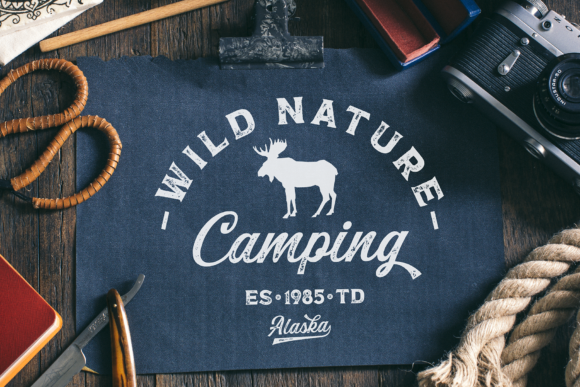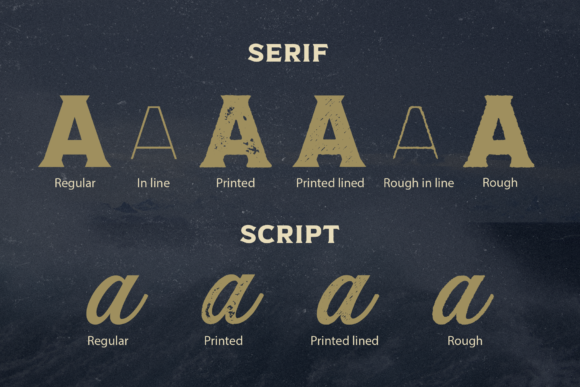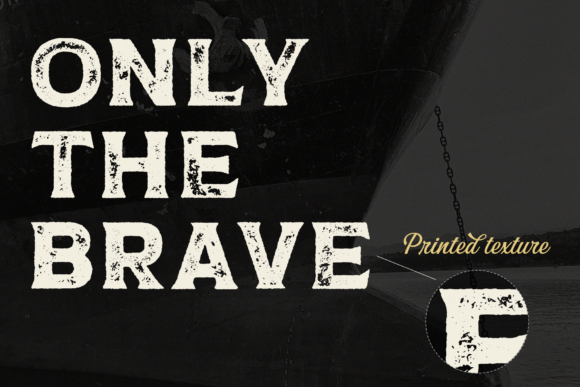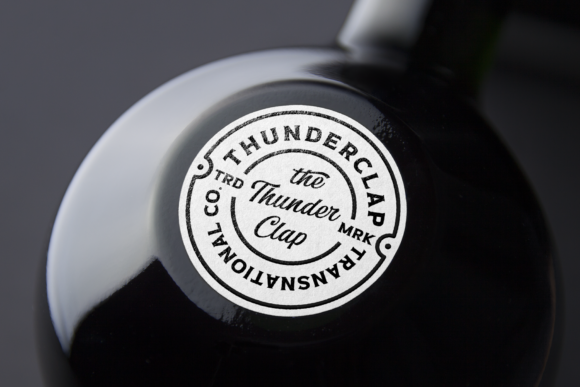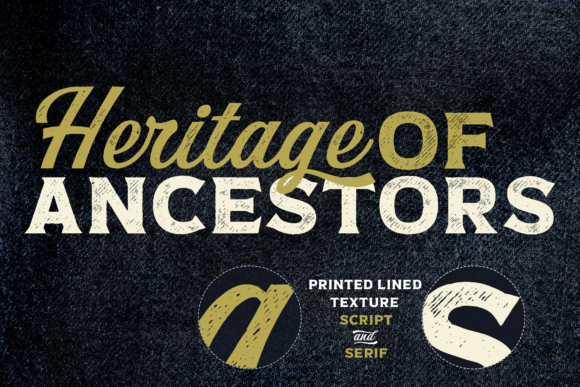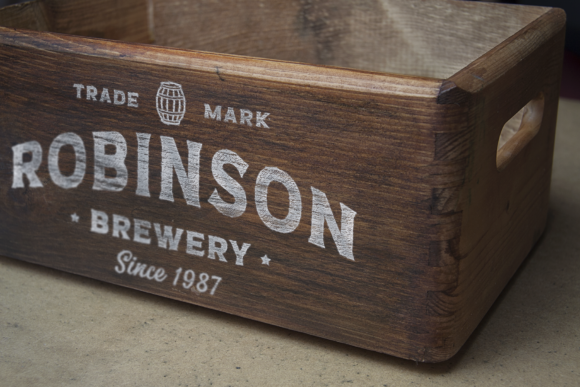
Introducing Captain Nelson Font: The Ultimate Duo for Stunning Design Results
Are you tired of using the same old fonts in your designs? Look no further than Captain Nelson Font, a game-changing duo that combines a charming script font with a confident serif font. This powerful pair is designed to help you create stunning design results that will leave a lasting impression. In this article, we’ll dive into the world of Captain Nelson Font and explore its features, benefits, and uses.
The Perfect Pair: Script and Serif Fonts
Captain Nelson Font brings together two incredible fonts that are designed to work perfectly together. The script font is a beautiful, flowing font that delivers charisma and charm, while the serif font adds a layer of confidence and sophistication. This duo is perfect for designers and crafters who want to create visually appealing designs that stand out from the crowd.
The Script Font: Charisma and Charm
The script font in Captain Nelson Font is a stunning, hand-drawn font that exudes elegance and sophistication. Its flowing lines and curves make it perfect for use in designs where you want to add a touch of personality and whimsy. Whether you’re creating a logo, invitation, or social media graphic, this script font is sure to impress.
The Serif Font: Confidence and Sophistication
The serif font in Captain Nelson Font is a strong, confident font that adds a layer of professionalism to your designs. Its clean lines and classic look make it perfect for use in designs where you want to convey trust and authority. Whether you’re creating a business card, brochure, or website, this serif font is sure to deliver.
Benefits of Using Captain Nelson Font
So why choose Captain Nelson Font for your design projects? Here are just a few benefits of using this amazing font duo:
- Unique and Versatile: Captain Nelson Font is a unique and versatile font duo that can be used in a wide range of design projects, from logos and branding to social media graphics and websites.
- High-Quality Design: Both fonts in Captain Nelson Font are high-quality, professionally designed fonts that are optimized for use in digital and print designs.
- Easy to Read: The serif font in Captain Nelson Font is easy to read, even at small sizes, making it perfect for use in body text and other long-form content.
- Customizable: With Captain Nelson Font, you can customize your designs to fit your brand’s unique style and personality.
Uses for Captain Nelson Font
So what can you use Captain Nelson Font for? The possibilities are endless! Here are a few ideas to get you started:
- Logos and Branding: Use Captain Nelson Font to create a unique and memorable logo for your business or brand.
- Social Media Graphics: Use Captain Nelson Font to create eye-catching social media graphics that will help you stand out from the crowd.
- Websites: Use Captain Nelson Font to create a professional and visually appealing website that will impress your visitors.
- Print Designs: Use Captain Nelson Font to create stunning print designs, such as brochures, business cards, and flyers.
| Author | Pasha Larin |
In conclusion, Captain Nelson Font is a game-changing font duo that is perfect for designers and crafters who want to create stunning design results. With its charming script font and confident serif font, this duo is versatile, unique, and easy to use. Whether you’re creating a logo, social media graphic, website, or print design, Captain Nelson Font is sure to deliver. So why wait? Download Captain Nelson Font today and start creating amazing designs!